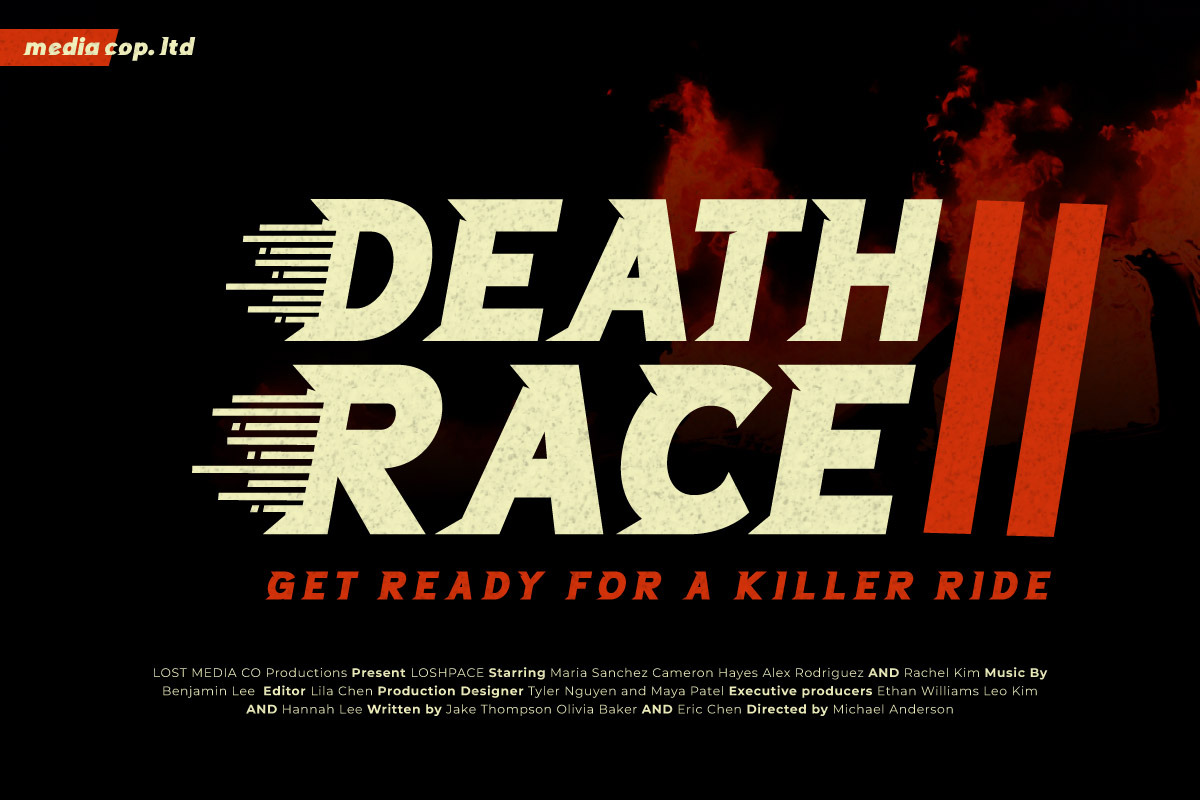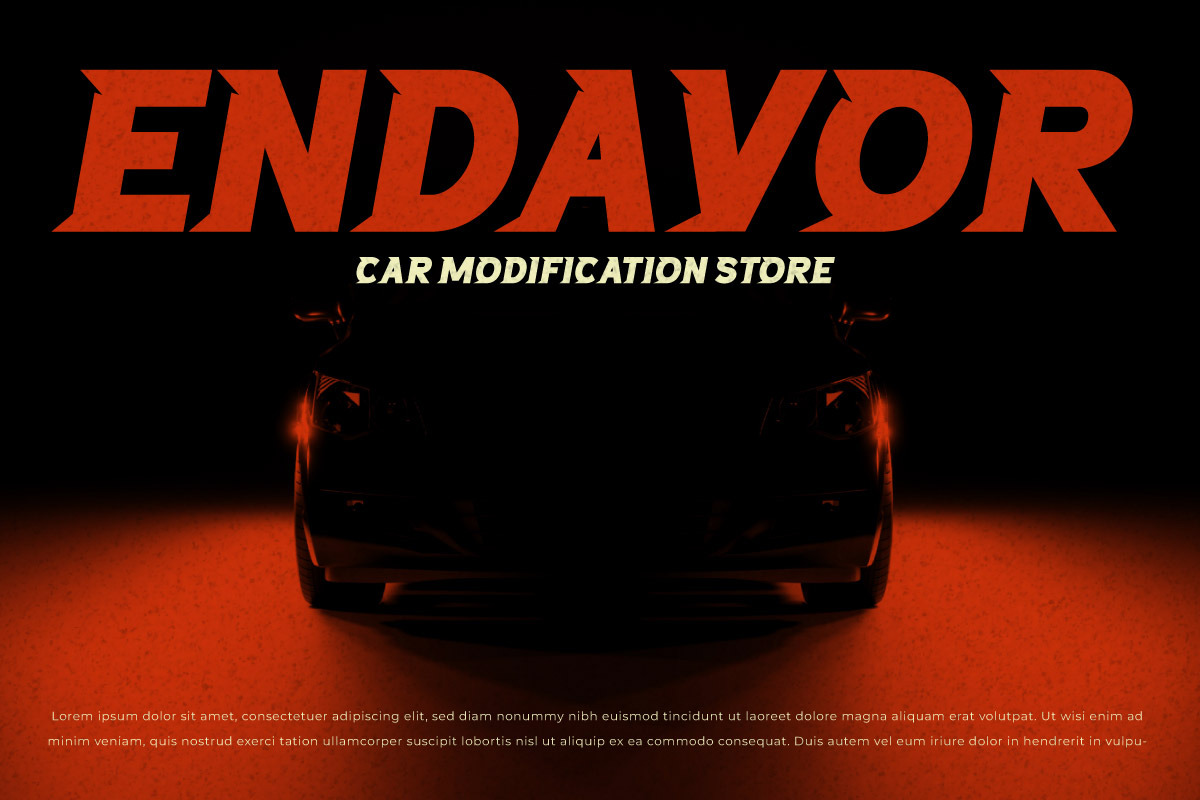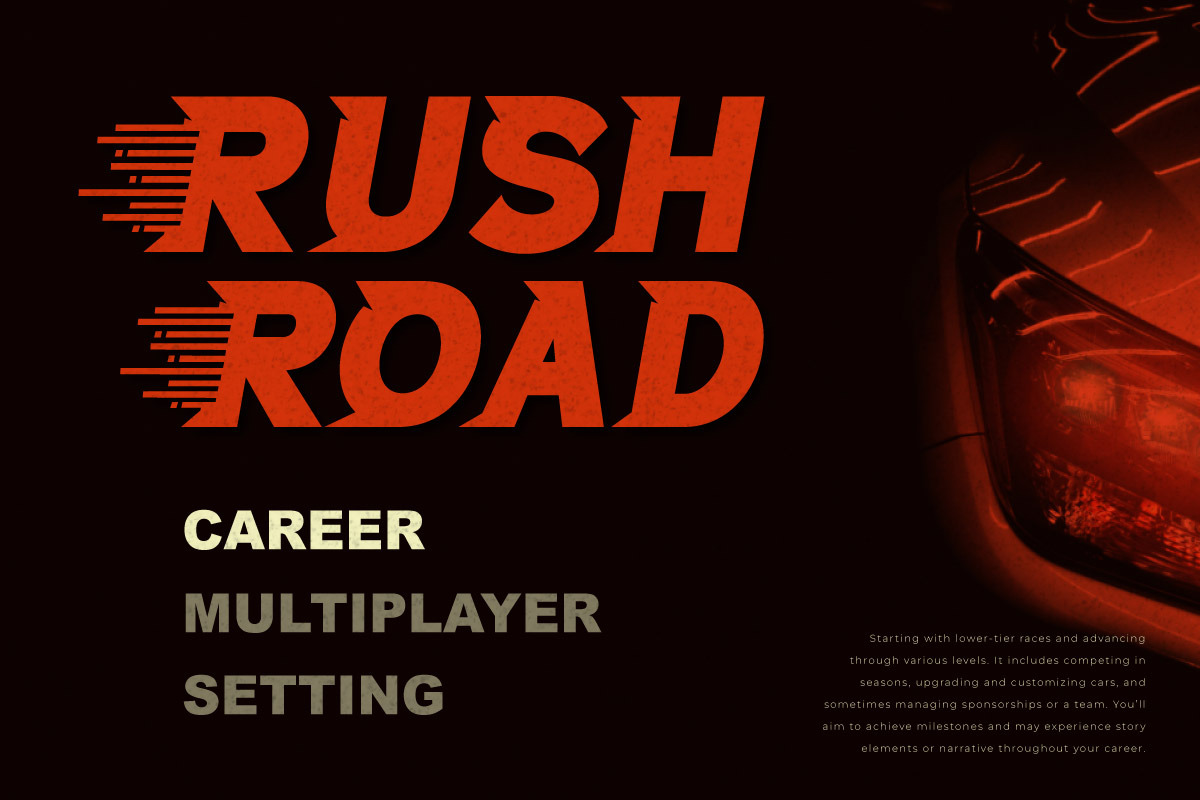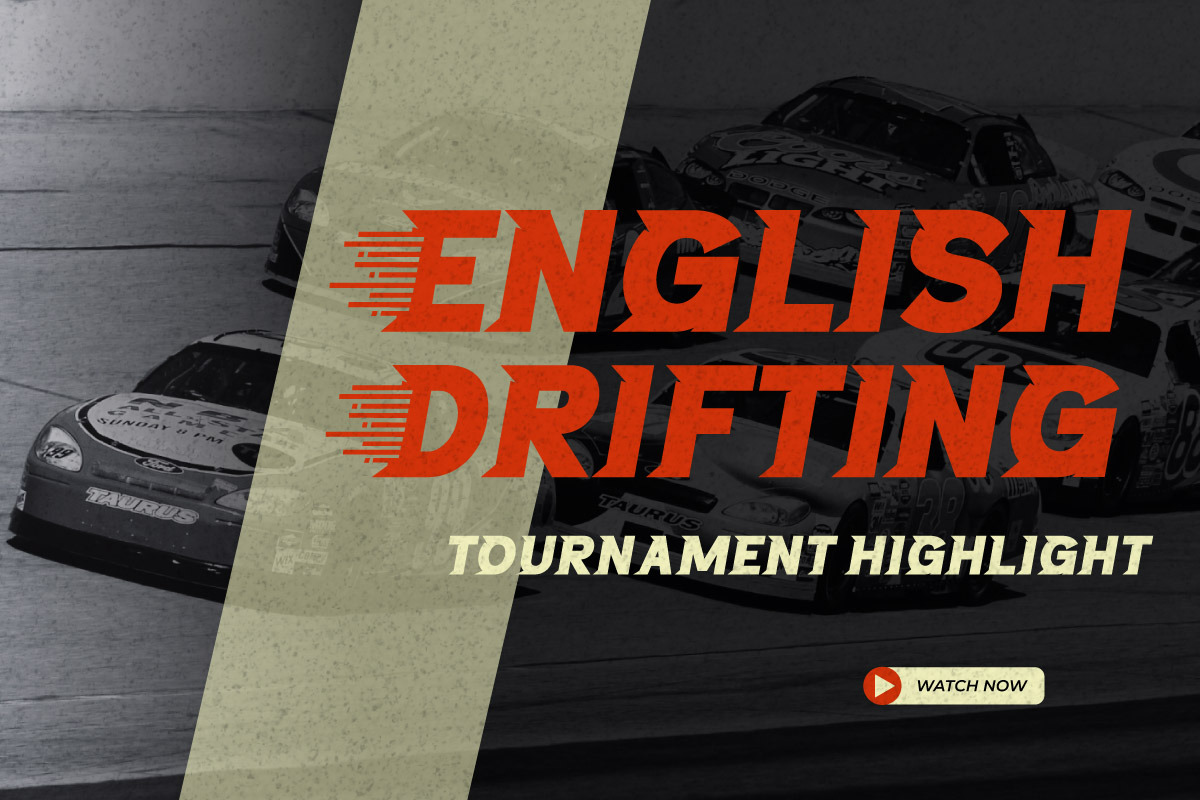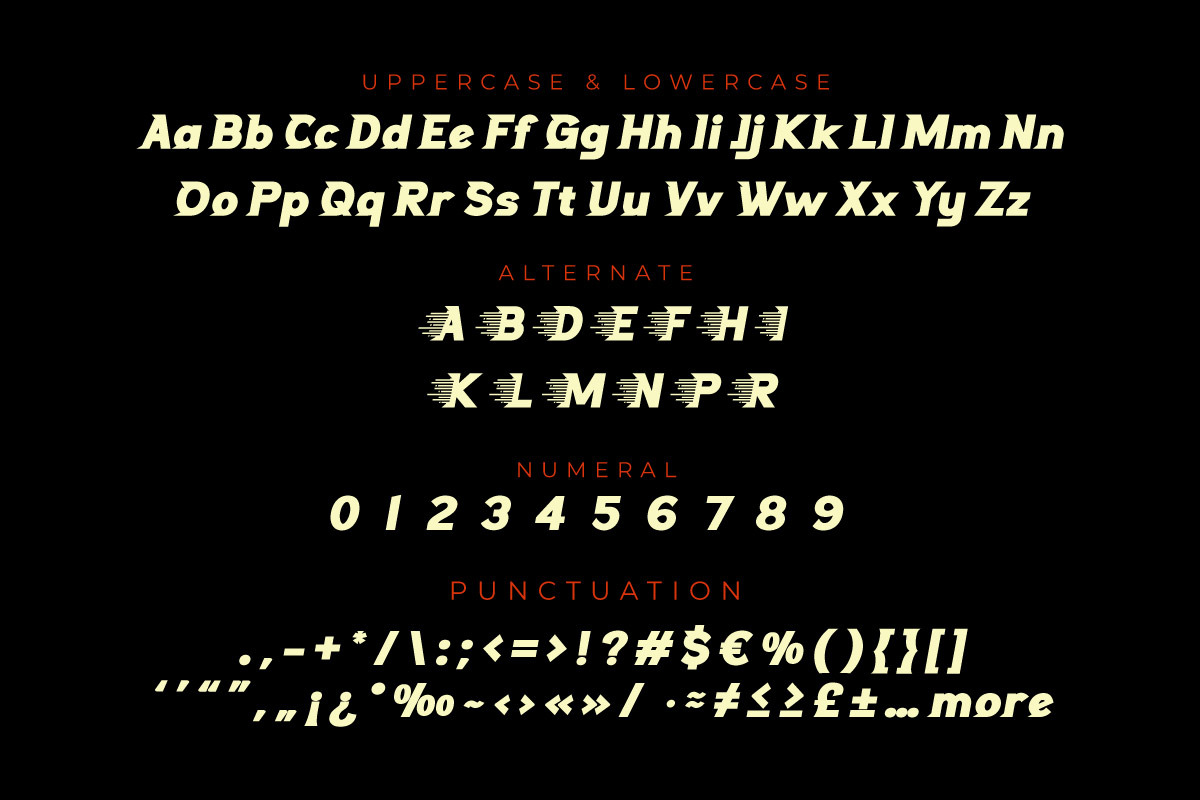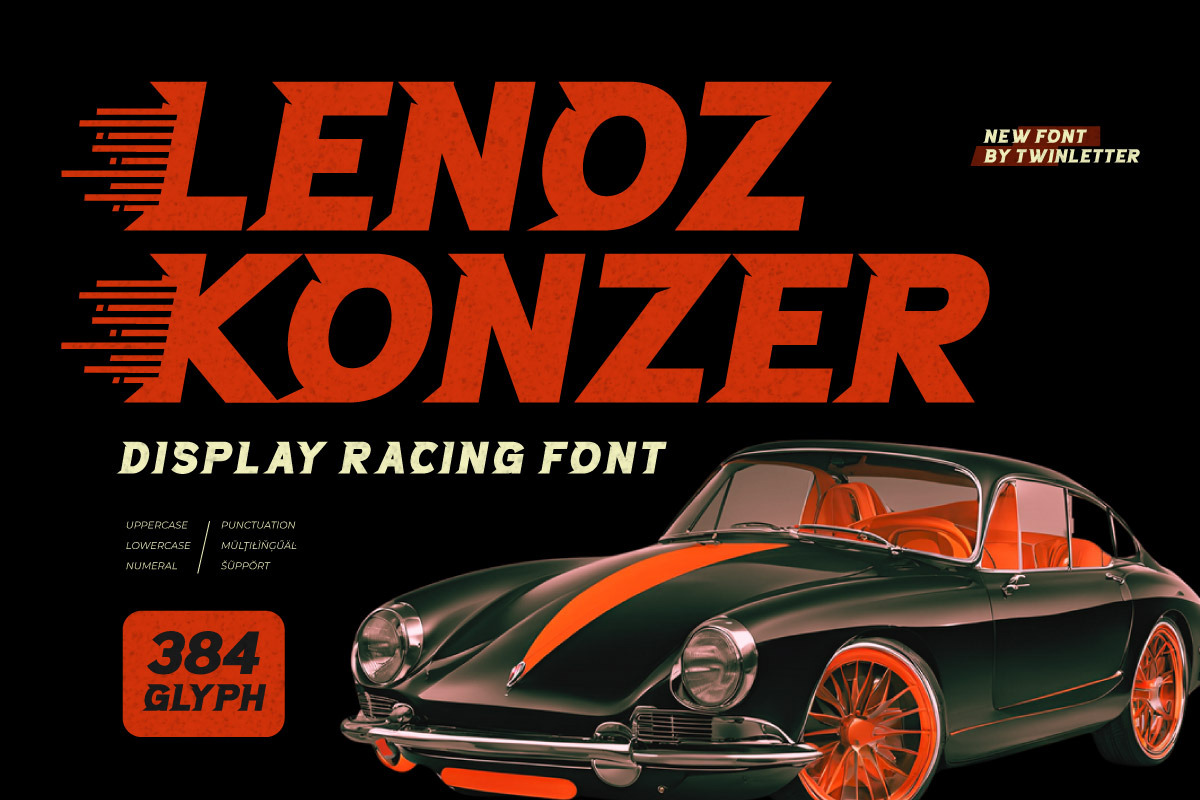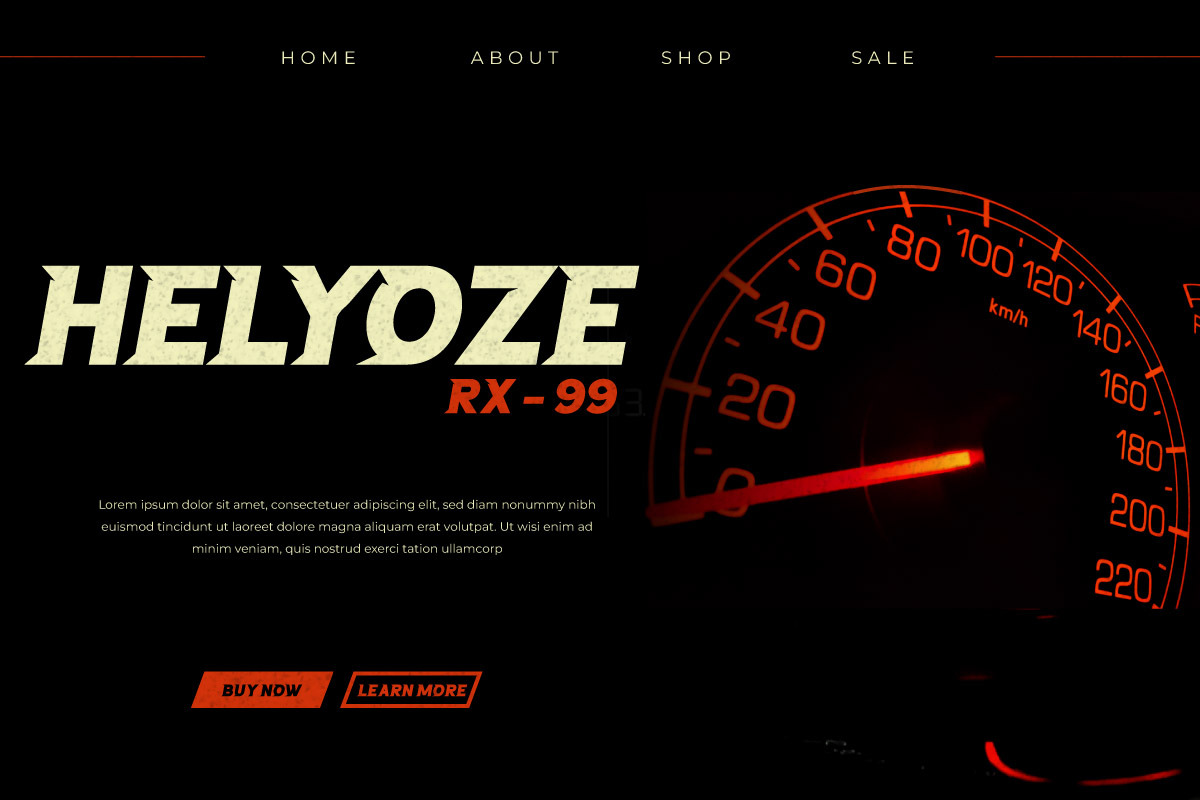
Lenozkonser - Display Racing Font
Fuel your designs with speed and adrenaline using Lenozkonser, a bold Display Racing Font built for fast-paced, high-impact projects. Ideal for race car branding, motorsports events, dynamic posters, and sportswear design, Lenozkonser features sharp, angular letterforms that embody the intensity and thrill of the racing world. Every letter is designed to evoke motion, making your text feel fast, powerful, and unstoppable.
With its aggressive and aerodynamic look, Lenozkonser is perfect for capturing the excitement of racing and competition. Whether you’re crafting a bold logo for a racing team or designing promotional materials for a high-octane event, this font ensures that your designs leave a lasting impression. Its striking, energetic style makes it a go-to choice for any project that demands speed and action.
Shift your designs into high gear with Lenozkonser, the font that delivers pure racing energy.